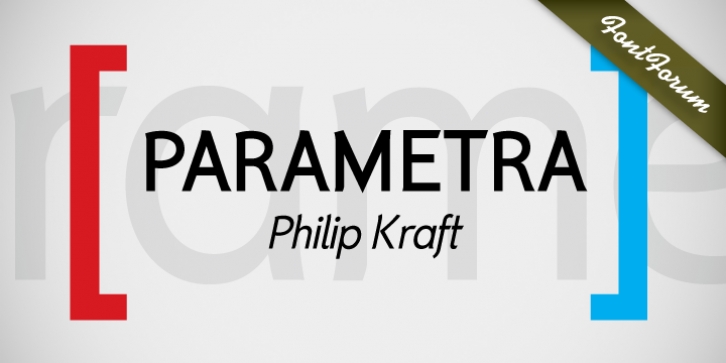
Publisher: URW++
Parametra is a very elegant and modern typeface achieved by the strong form reduction of the individual characters and at the same time harmonizing them by given parameters.
It is something of its own, but quite legible and well-suited for small text.
Also, Parametra and Bohemian can be mixed perfectly since their proportions and dimensions are the same.
Parametra was designed for the URW++ FontForum.